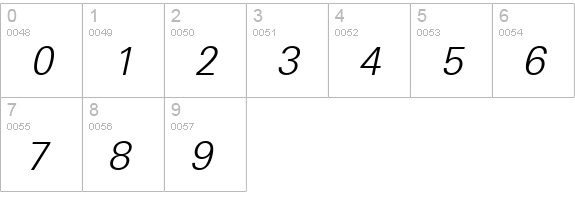
Nova Light SSi Light Italic is a refined, elegant, italic variant in the Nova typeface family \xE2\x80\x94 well suited to elegant body text, refined sub-headings, and luxury branding.
Nova Light SSi Light Italic is an elegant and modern font that exudes sophistication and style. Its sleek and slanted letterforms add a sense of movement and energy to any design. The Light Italic variation of Nova Light SSi Light font offers a subtle touch of emphasis and flair, making it perfect for adding a touch of grace to your projects. This beautiful typeface is not only visually appealing but also highly versatile, suitable for a wide range of design applications including branding, editorial design, and more. With its clean lines and graceful curves, Nova Light SSi Light Italic font is sure to make your text stand out and captivate your audience. Best of all, Nova Light SSi Light Italic font is available for free download at FontsMarket.com. So go ahead and give your designs a touch of elegance with this stunning typeface today!